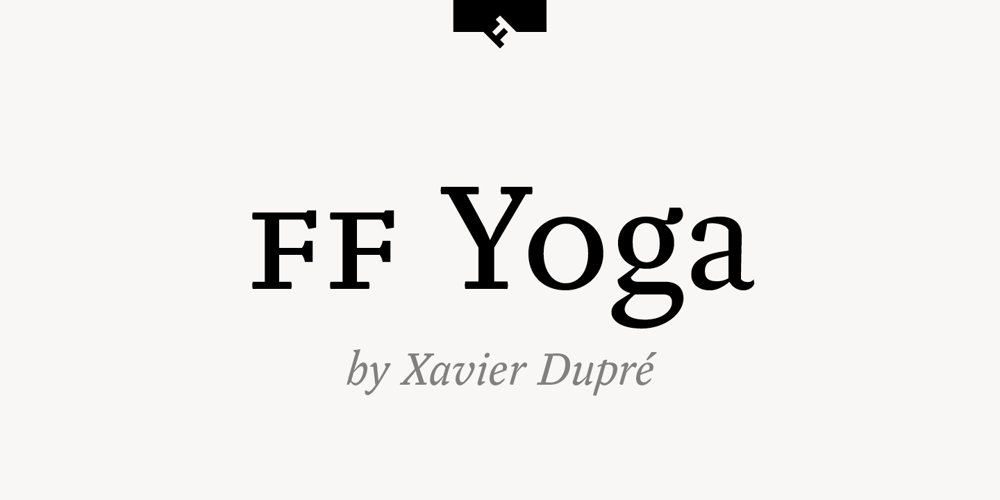
FF Yoga Font Family was designed by Xavier Dupré and published by FontFont. FF Yoga contains 12 styles and family package options. French type designer Xavier Dupré created this serif FontFont in 2009. The family contains 4 weights: Regular, Italic, Bold, and Bold Italic and is ideally suited for advertising and packaging, book text, festive occasions, editorial and publishing, logo, branding and creative industries as well as web and screen design. FF Yoga provides advanced typographical support with features such as ligatures, small capitals, alternate characters, case-sensitive forms, fractions, and super- and subscript characters. It comes with a complete range of figure set options – oldstyle and lining figures, each in tabular and proportional widths. This FontFont is a member of the FF Yoga super family, which also includes FF Yoga Sans.